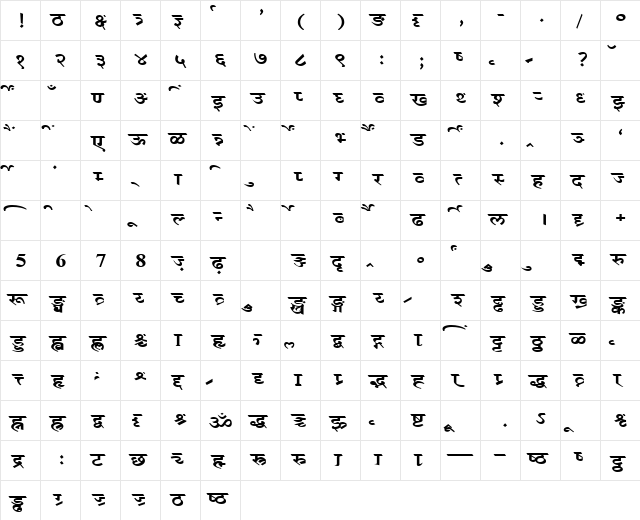
AkrutiDevNewPriyaExpand Bold Font Preview
AkrutiDevNewPriyaExpand Bold
Design Context for AkrutiDevNewPriyaExpand Typeface
AkrutiDevNewPriyaExpand takes a measured approach to typography — its balanced proportions and neutral character make it a reliable workhorse for both digital and print work. The heavy weight commands attention and anchors typographic hierarchies.